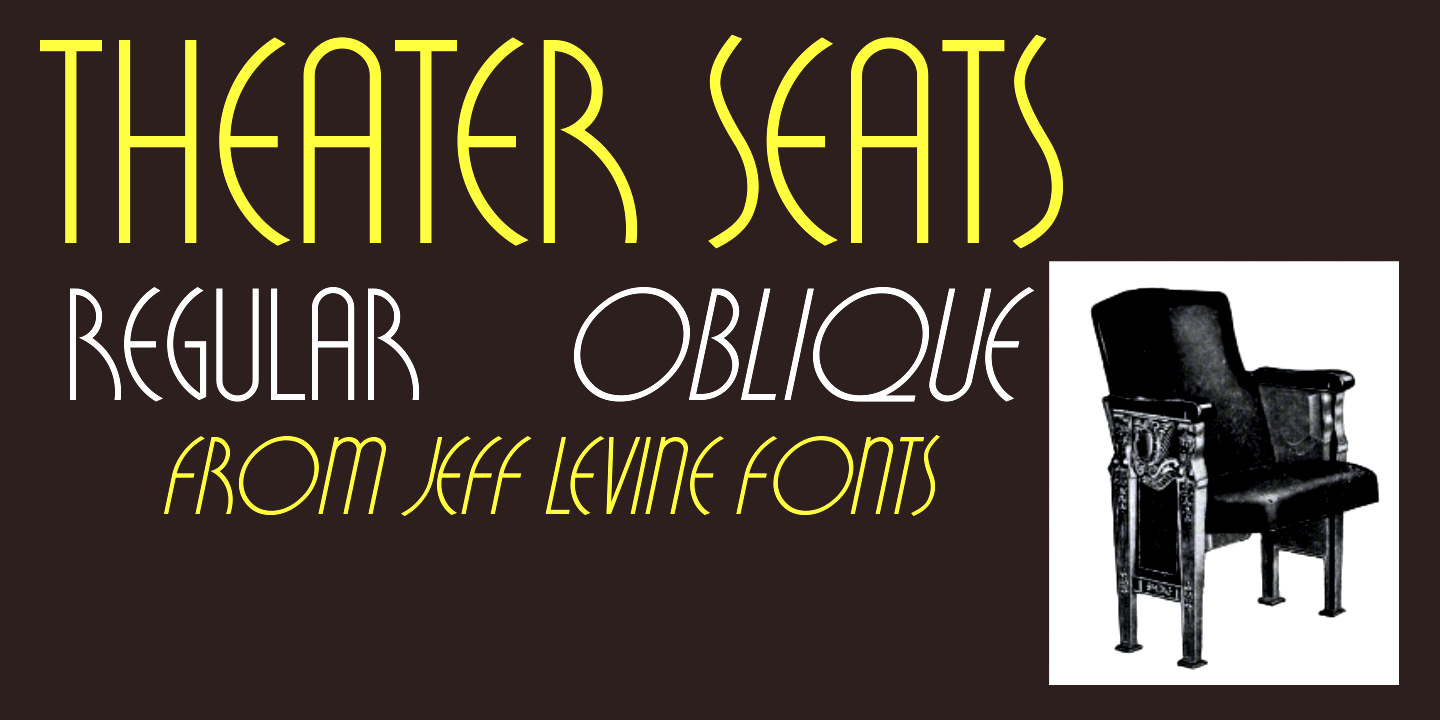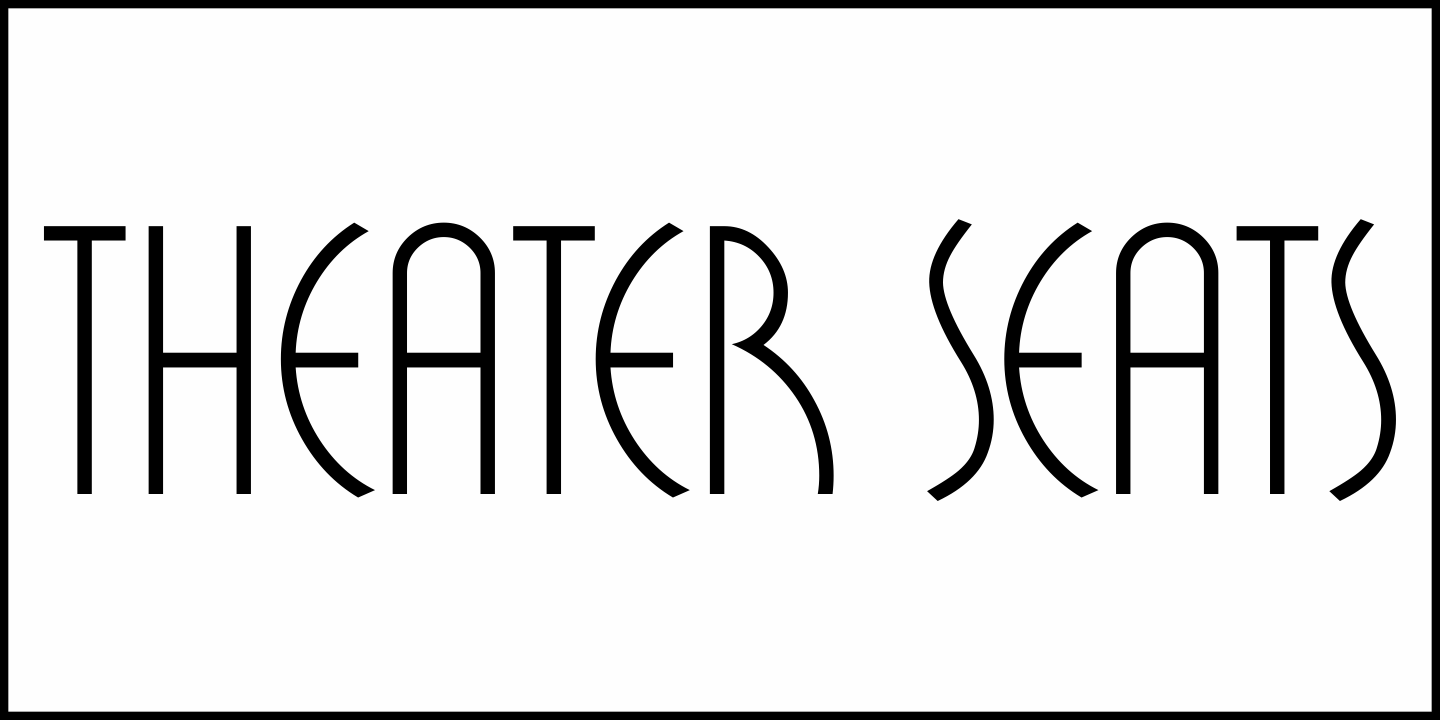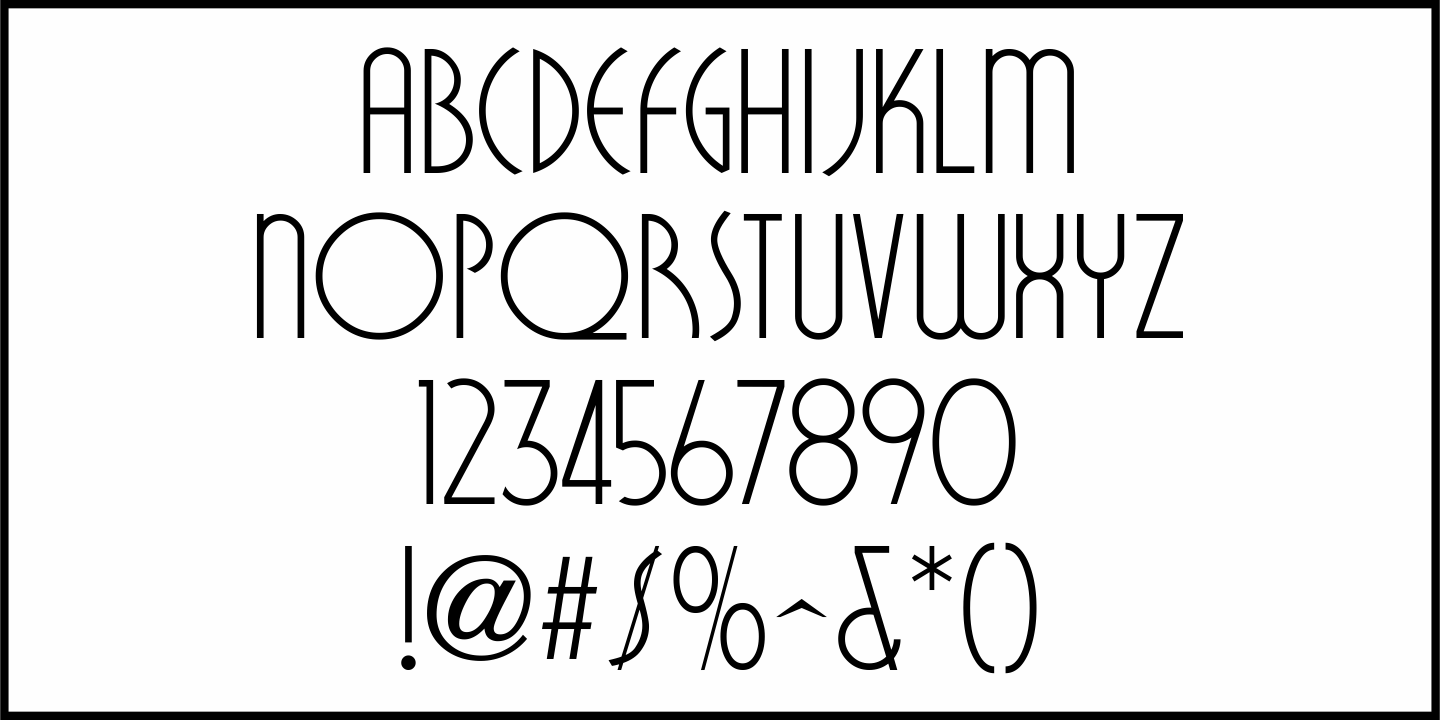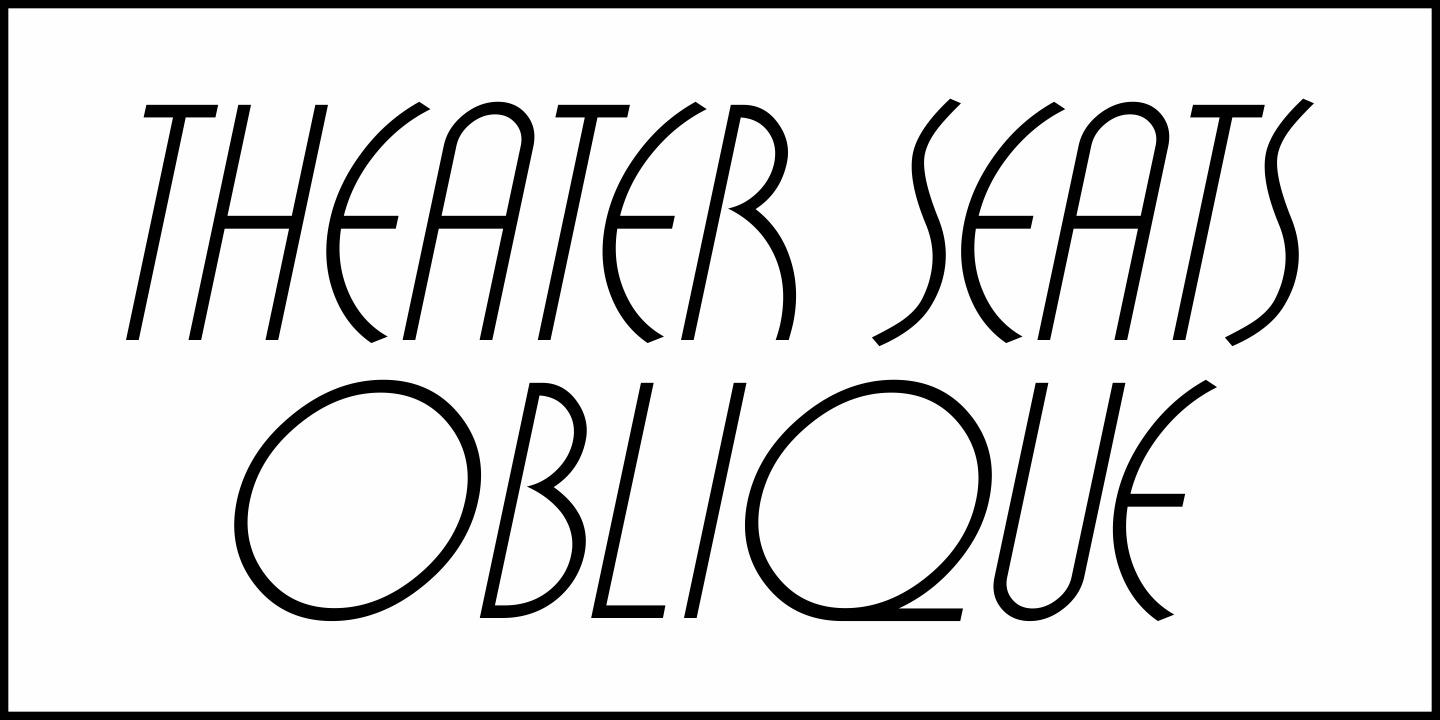
Theater Seats
In the 1937 edition of Film Daily's Year Book of Motion Pictures, and ad for International Seat Corp.featured stylish text hand lettered in a thin (monoline) Art Deco Sans Serif style.
This formed the basis for Theater Seats JNL, which is available in both regular and oblique versions.